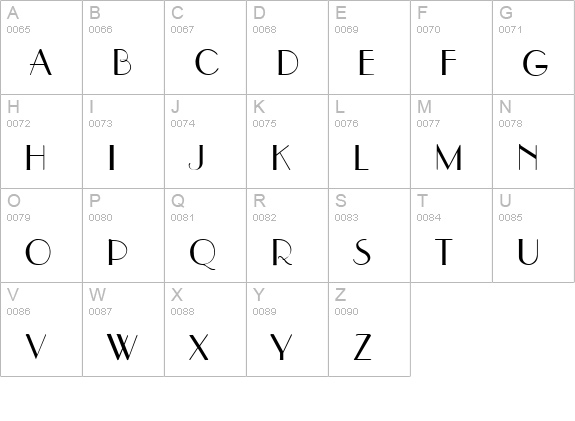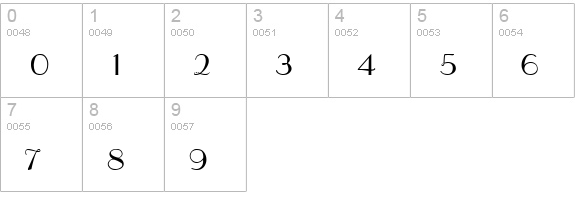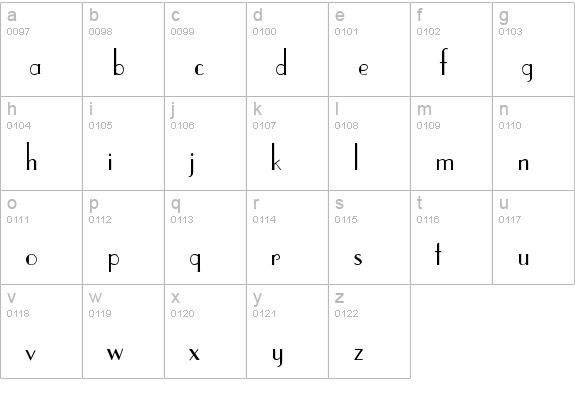
ParisianT Font Details
ParisianT is a stunning and elegant font that captures the essence of Parisian sophistication and charm. Its classic and timeless design evokes images of grand boulevards, quaint cafes, and the artistic spirit that permeates the city. With its stylish serifs and delicate curves, ParisianT brings a touch of French elegance to any project. This font is meticulously crafted to ensure legibility and readability, making it perfect for a wide range of design applications. Whether you're working on a logo, branding, invitations, or any other creative project, ParisianT will add a touch of refinement and sophistication. One of the best things about ParisianT is that it is free! That's right, you can download this exquisite font without spending a dime. It is freely available to download at FontsMarket.com, a trusted source for high-quality fonts. So, not only will you have access to a beautiful and versatile font, but you can also enjoy the added benefit of it being completely free. So why wait? Elevate your designs with the ParisianT font and bring a touch of Parisian elegance to your projects. Download it now from FontsMarket.com and let your creativity soar.